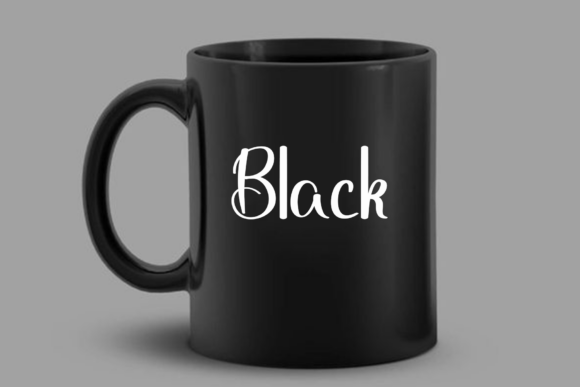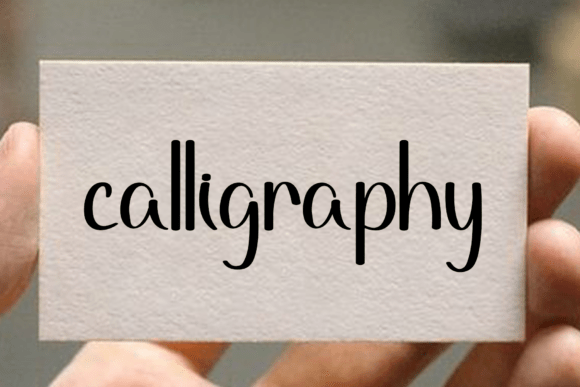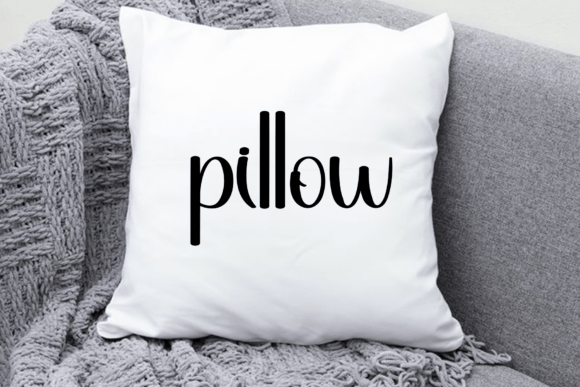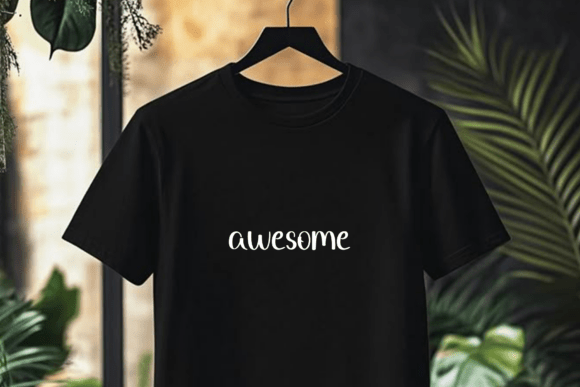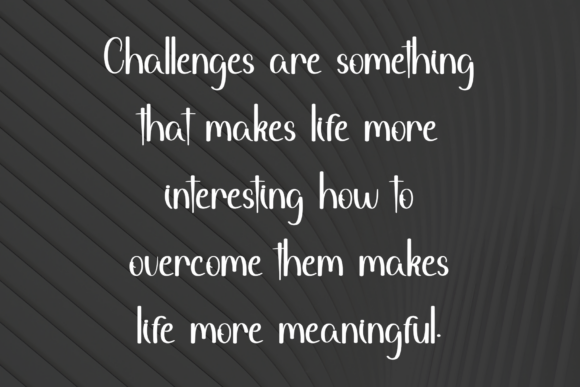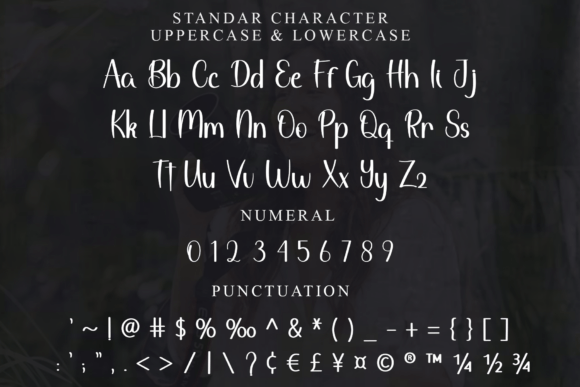
Introduction to Homecare Font
Remember that moment when you’re brainstorming ideas for a creative project, and the perfect font just seems to click? For many designers, finding the right typography can make all the difference between a good design and a great one. If you’re looking for a high-quality font that exudes warmth and friendliness, look no further than the Homecare Font. This charming, hand-drawn font is perfect for personal projects, invitations, and social media graphics.
With its round, playful strokes, the Homecare Font creates a relaxed and approachable feel that’s sure to engage your audience. Whether you’re working on a free download or a paid design resource, this font is a valuable addition to any designer’s toolkit. Plus, its transparent background makes it easy to customize and use in a variety of applications, from Adobe Photoshop to Canva.
Whether you’re a seasoned pro or just starting out, the Homecare Font is a must-have for any designer looking to add a touch of personality to their work. In this article, we’ll take a closer look at the features and benefits of this fantastic font, and explore how you can use it to take your creative projects to the next level.
Key Features of Homecare Font
- Unique transparent background design, perfect for modern and minimalist designs
- Designed to provide a clean and professional look, suitable for a wide range of applications
- Perfect for homecare-related projects, healthcare services, and medical institutions
Honest Review: Homecare Font
Here are some things that work well with the Homecare Font: ✨
- Clear and crisp typography
- Comes with a transparent background, making it easy to use on various design backgrounds
- Perfect for designing healthcare-related projects, including medical websites, brochures, and more
- Supports a wide range of languages, making it a great resource for global design projects
- Not as extensive a character set as some other fonts in this category
- Might not be suitable for complex, large-scale design projects due to its relatively simple design
Overall, I’m impressed with the Homecare Font’s clean and modern design. While it may not be perfect for every project, it’s a solid choice for healthcare-related design projects and a great resource to have in your design arsenal. With its high quality and free download, I’d definitely recommend giving it a try.
Experiment with different font sizes and styles to achieve the desired look. Use Homecare Font in combination with other design elements to create a visually appealing design.
Homecare Font is perfect for creating logos, graphics, and text overlays for your creative project. Use it in presentations, documents, and social media posts to give them a professional and cohesive look.